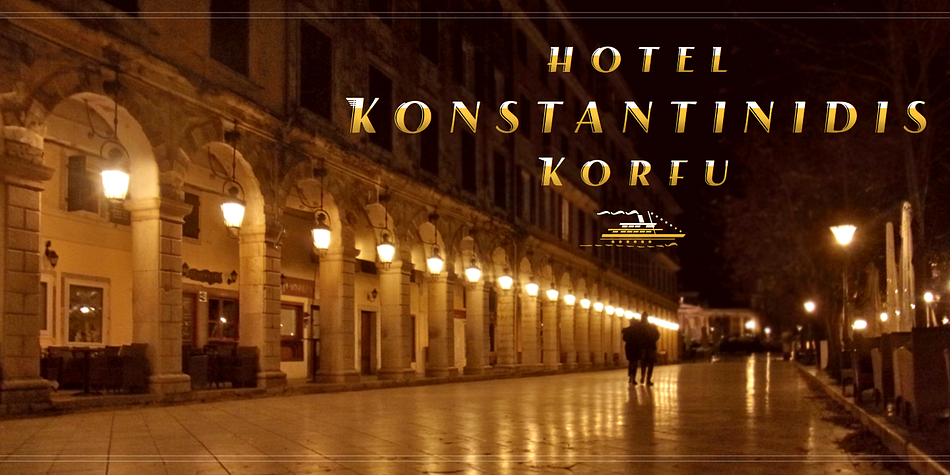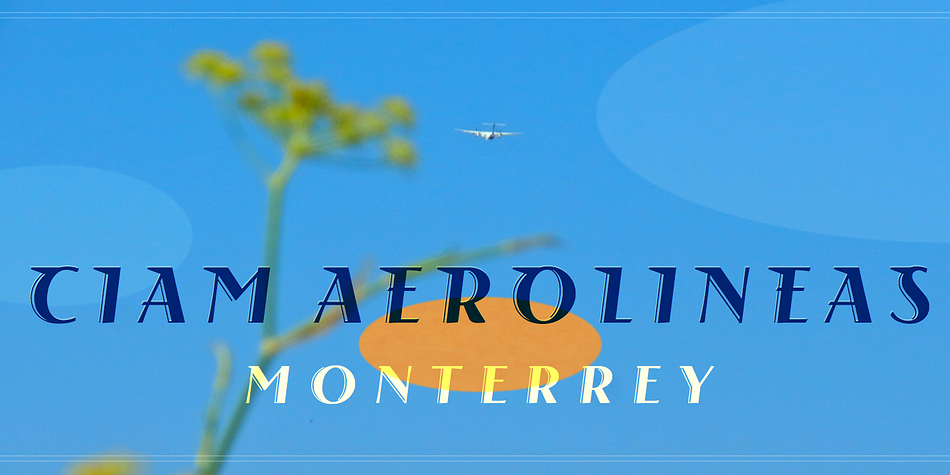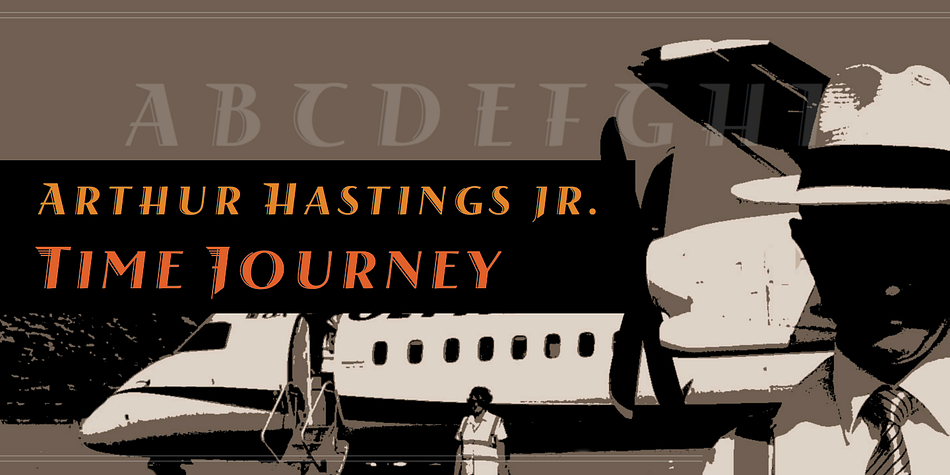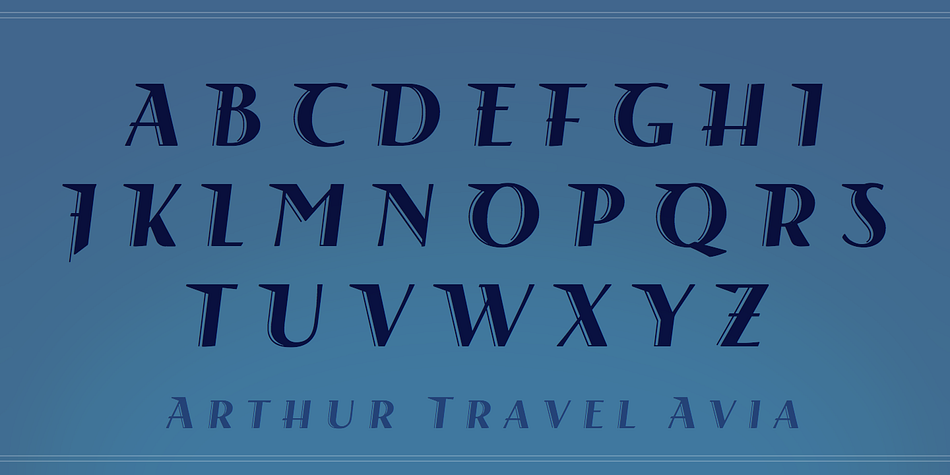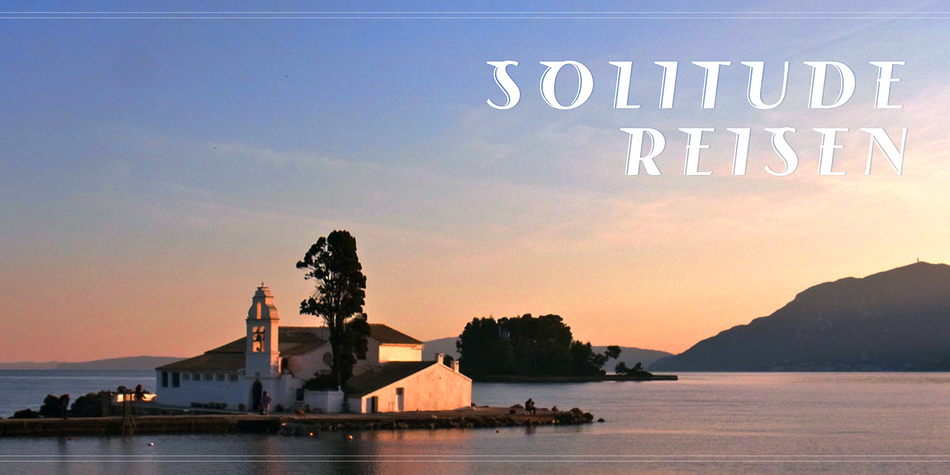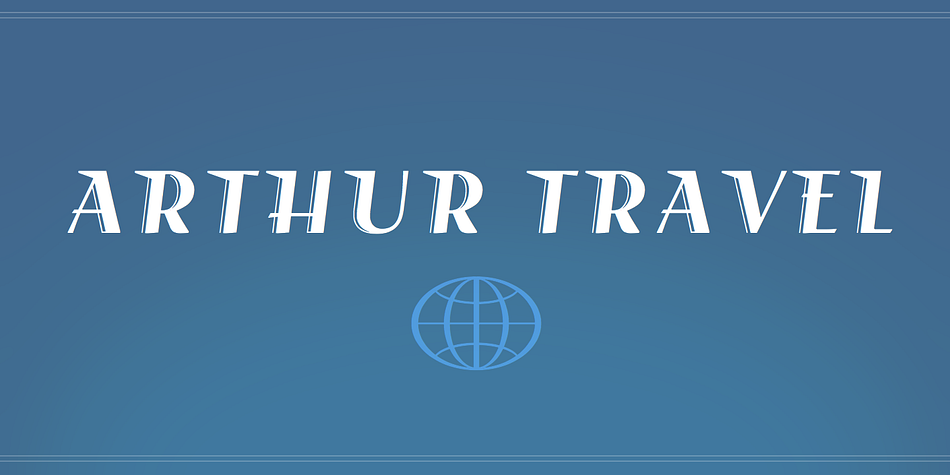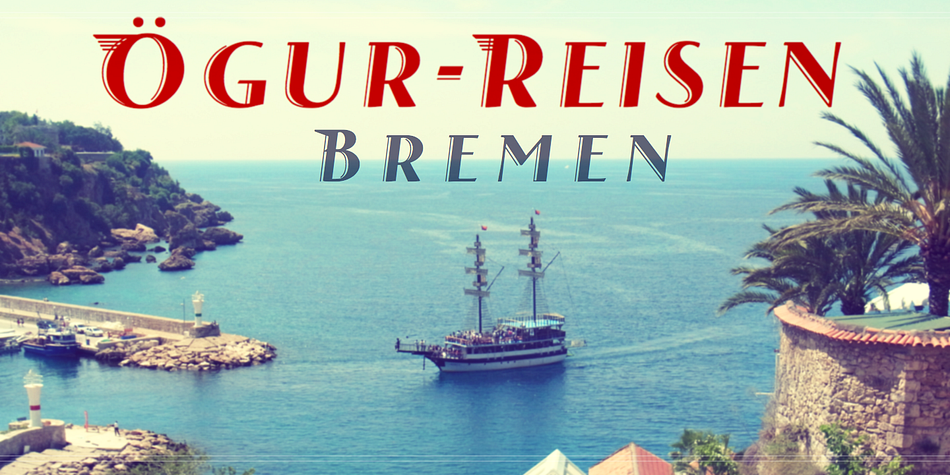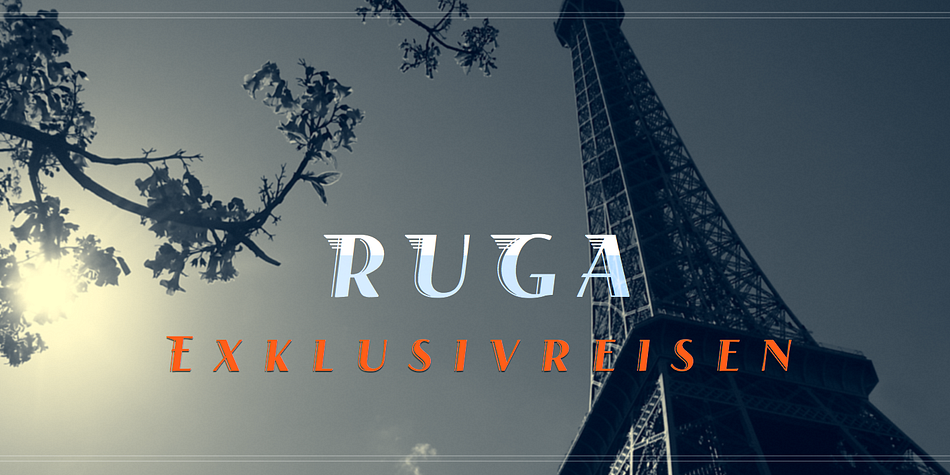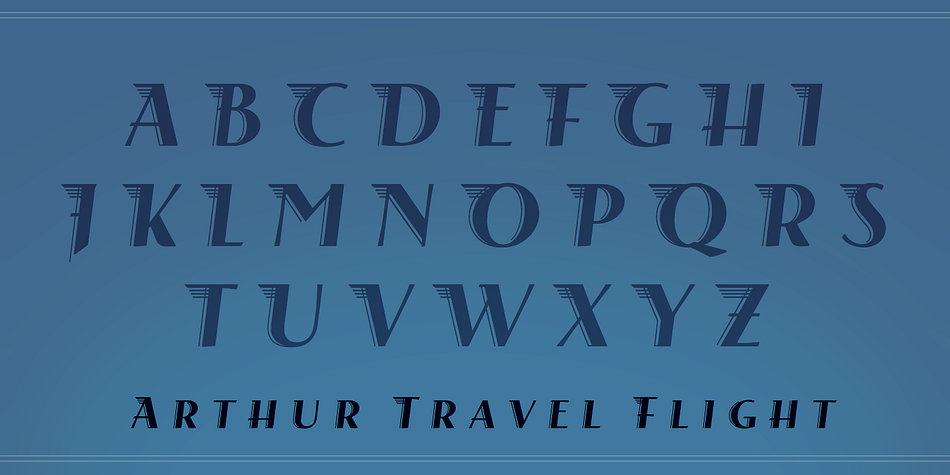
Designed by Andreas Stötzner, Arthur Travel is a art deco font family. This typeface has two styles and was published by Andreas Stötzner.
Arthur Travel is a brand new member of the sophisticated Arthur font series by Andreas Stötzner.
Arthur Travel evokes the mundane elegance of former decade’s travel brands and ads. It is an hommage to a certain kind of airline logos which boasted with wing-like serifs to open the skies and take you away …
Arthur Travel is based on the design of Arthur Sans Bold Italic and thus an ingenious companion to the repertoire of the unique Arthur Sans and Arthur Cabinet series.
Lend wings to your designs – use Arthur Travel for moving logotypes and airy lines which head for hight, heaven and delight.